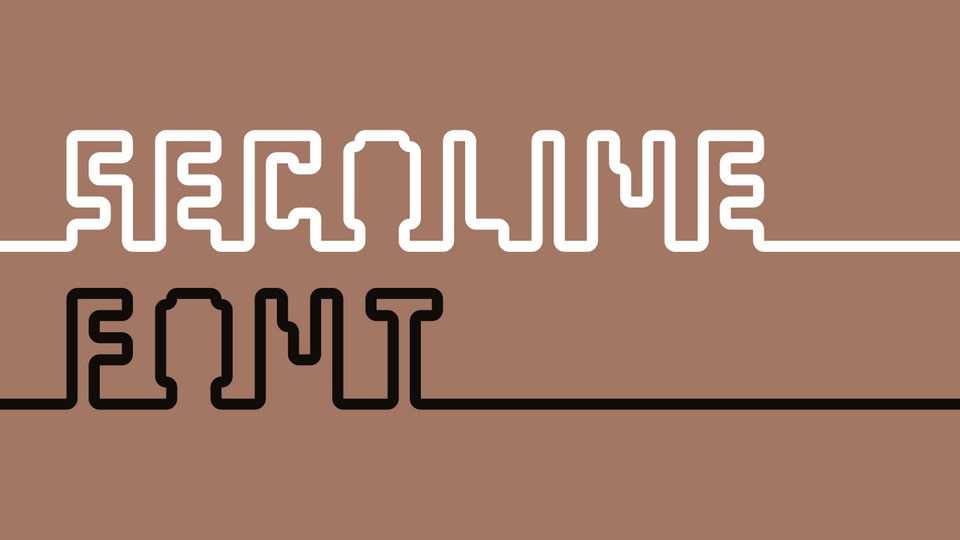
Download Secoline font, a clean and expressive display typeface built around a continuous line concept. Its monoline structure creates a strong visual rhythm, where letters feel connected and fluid.